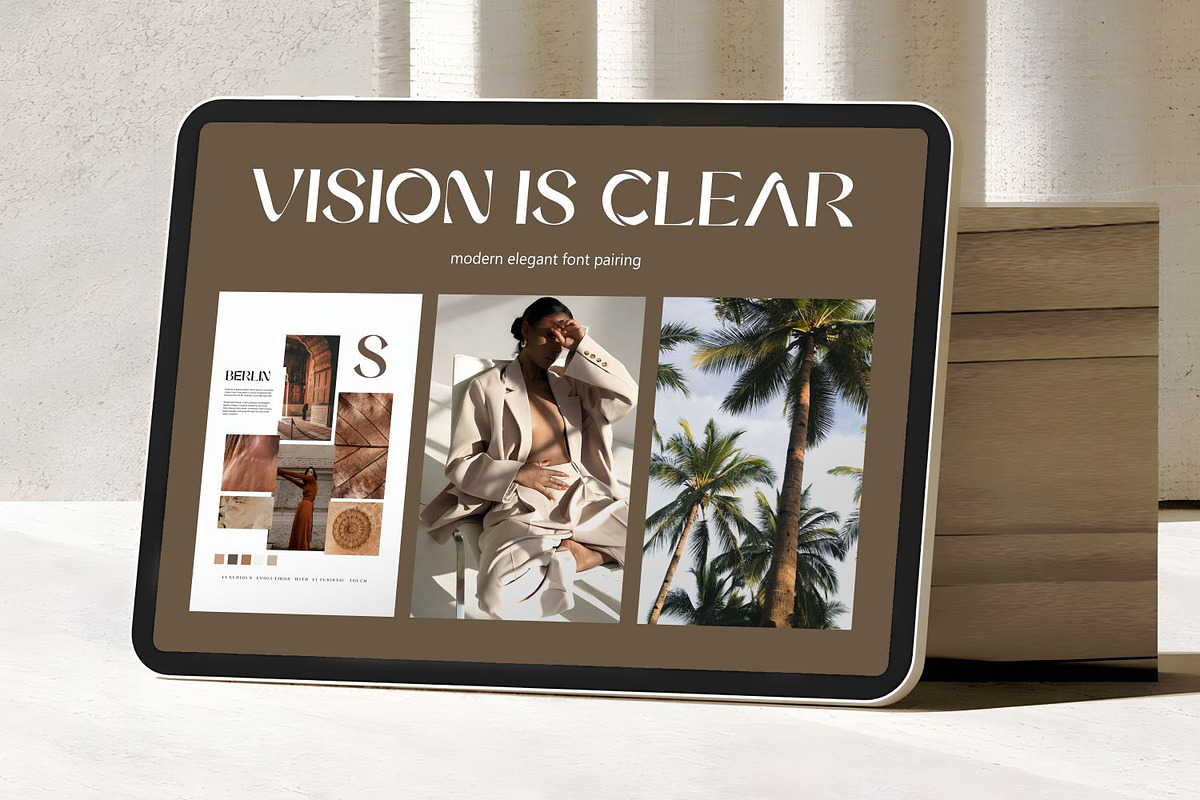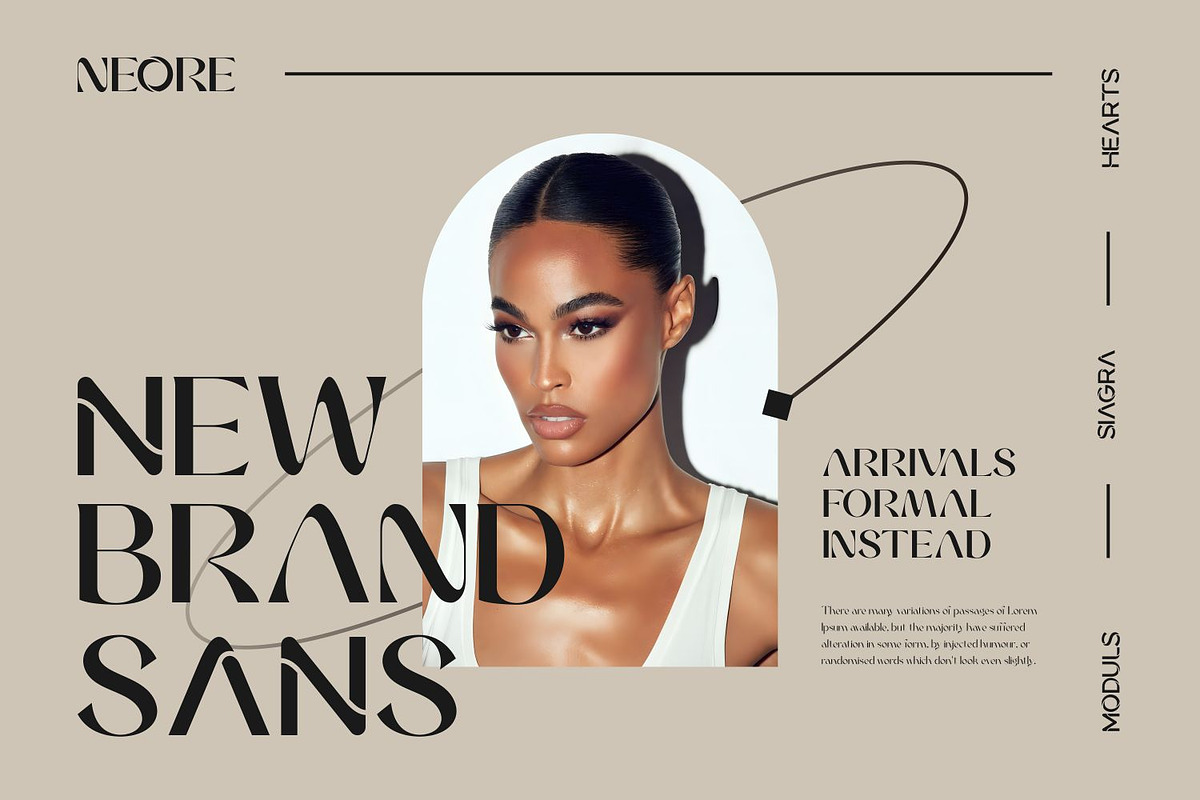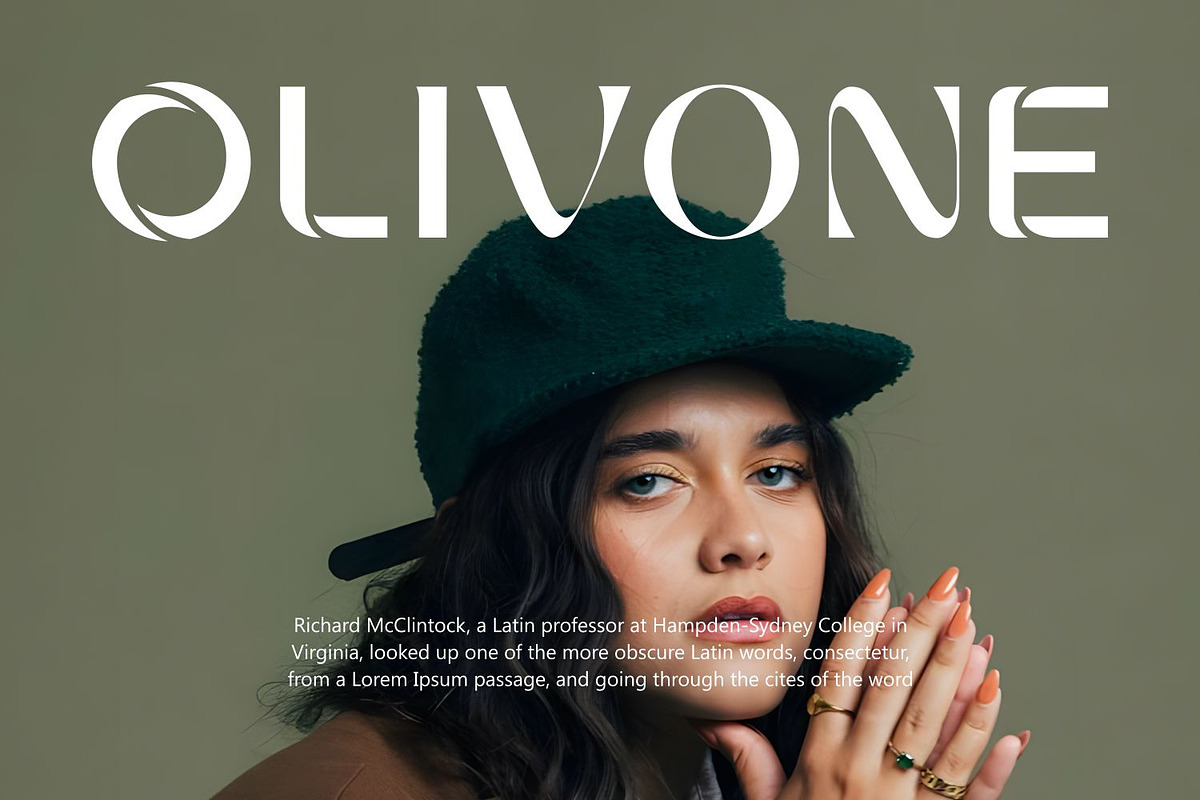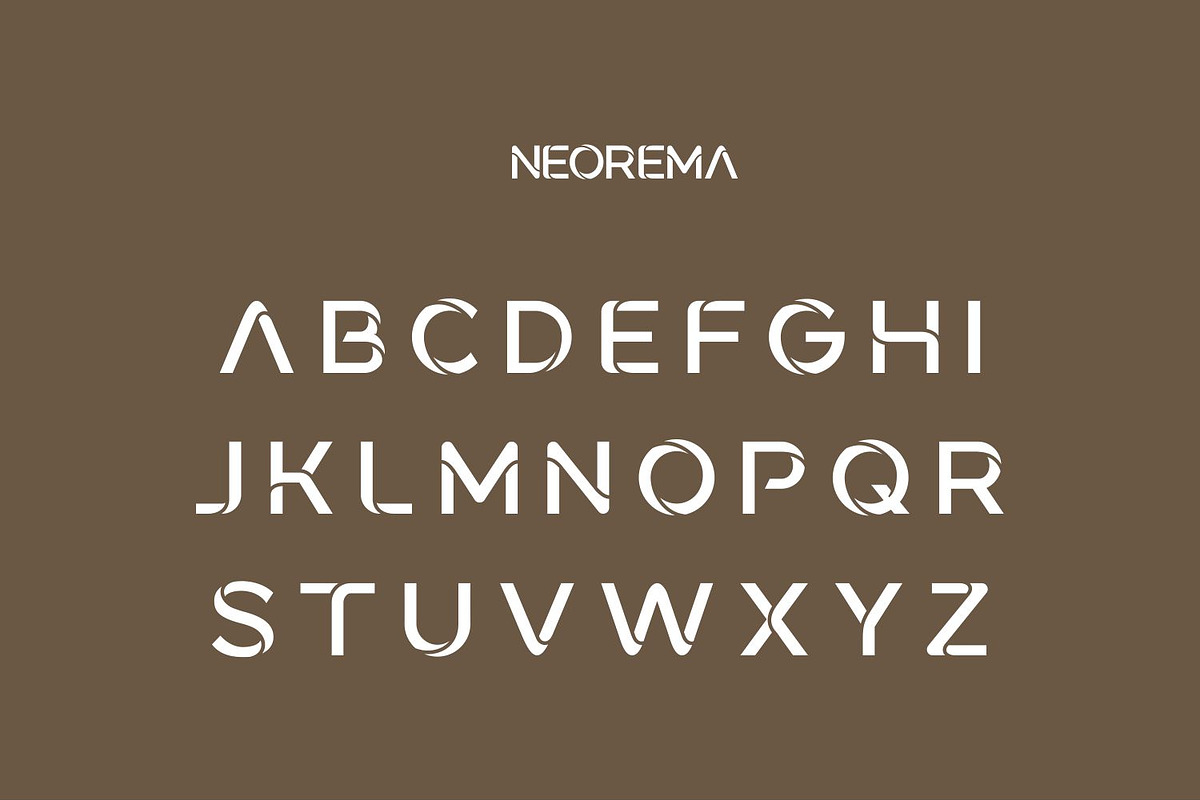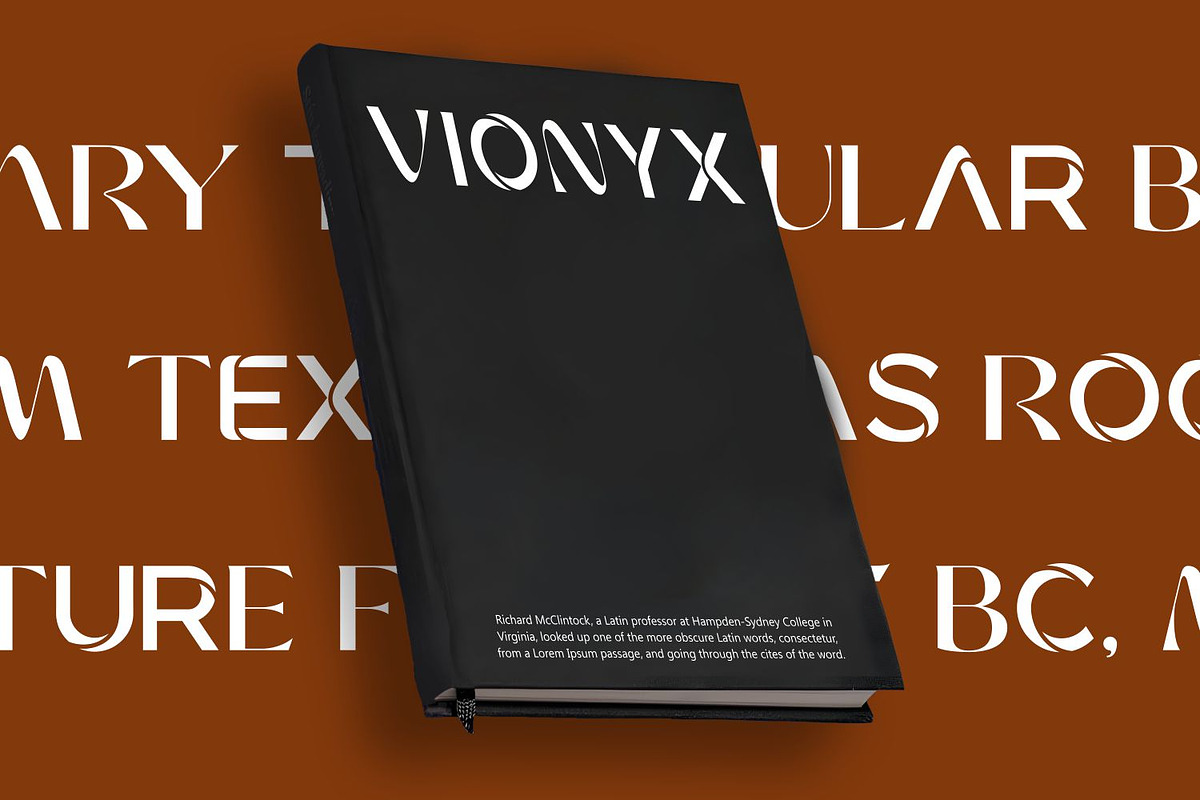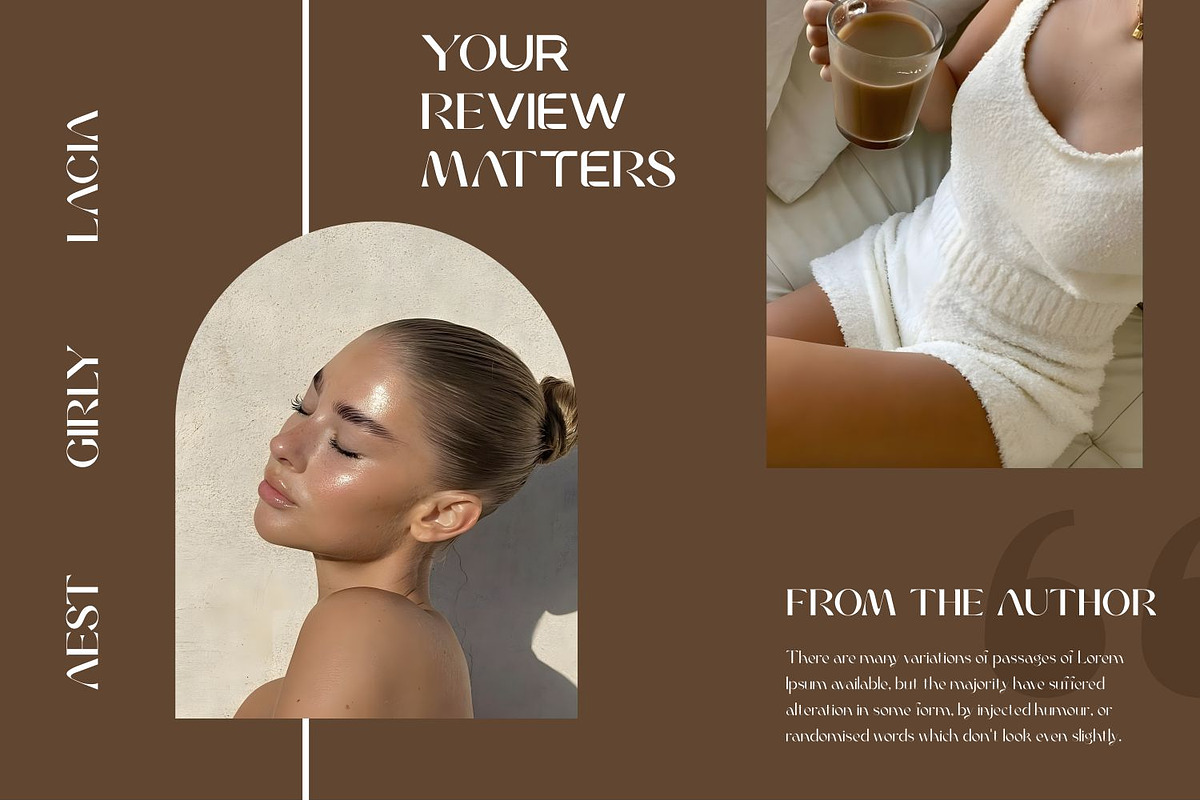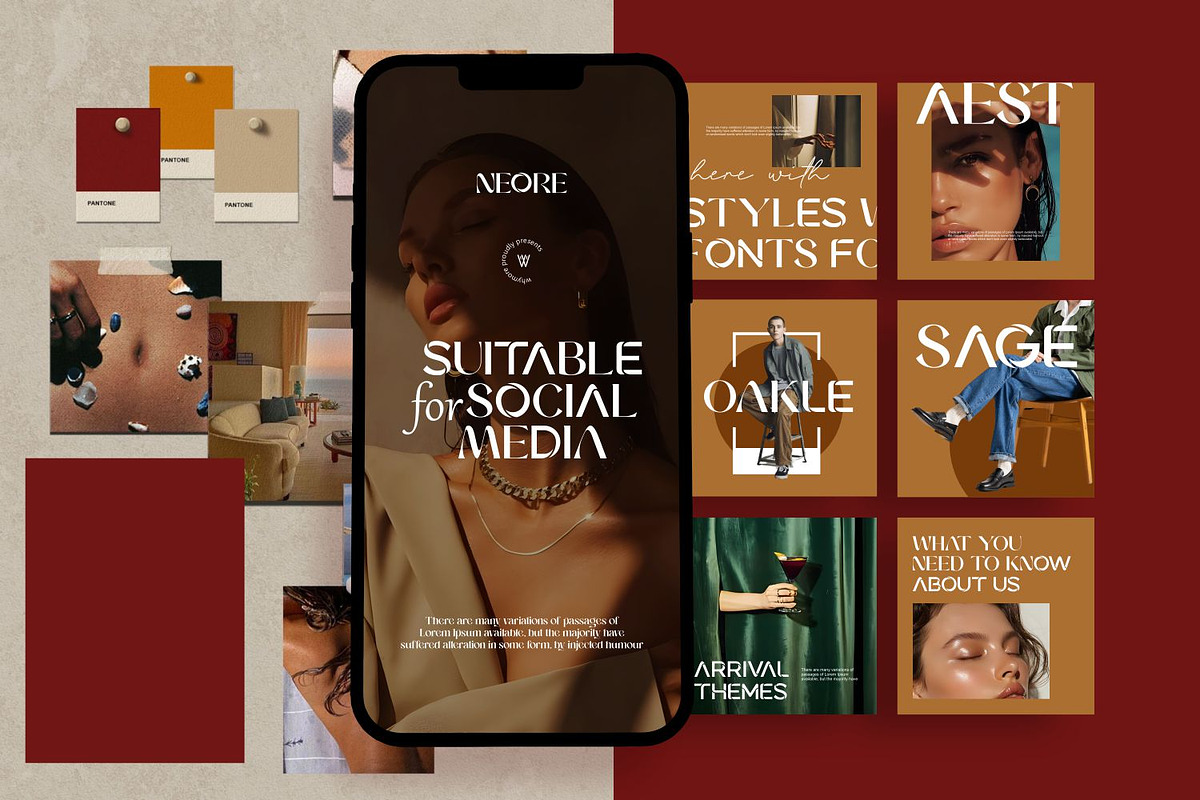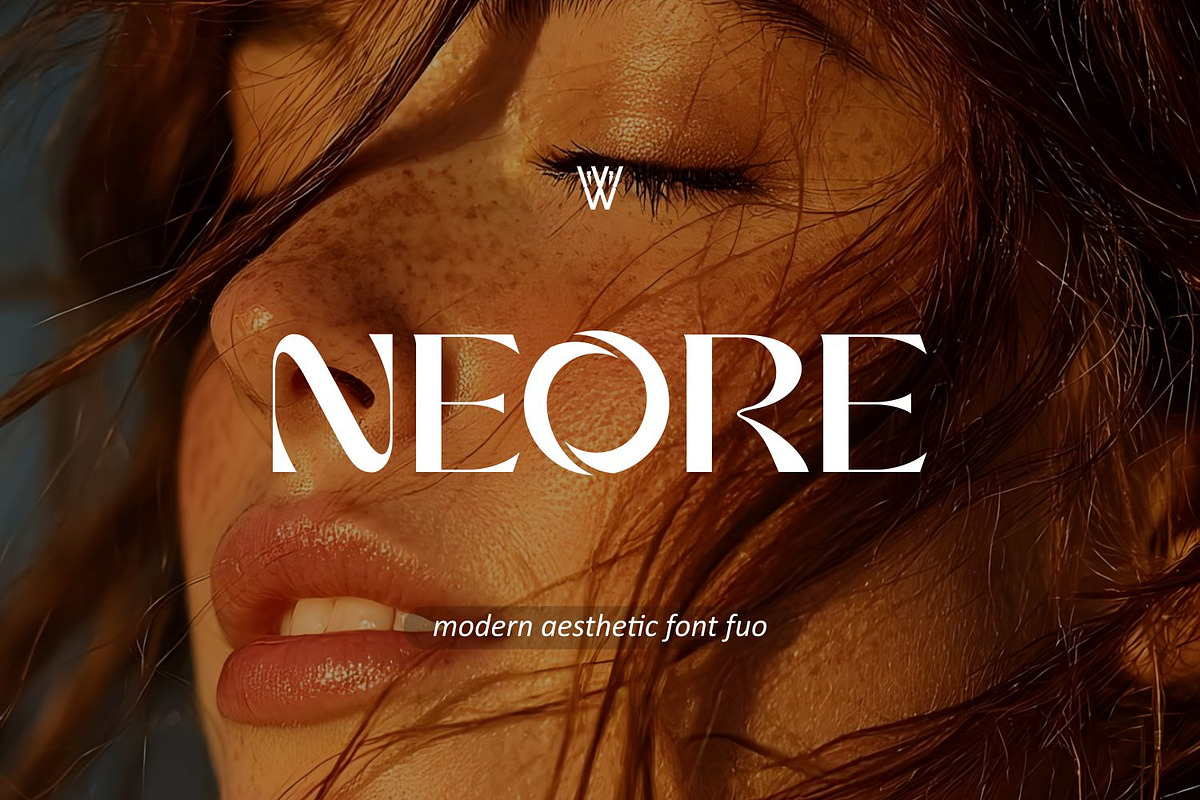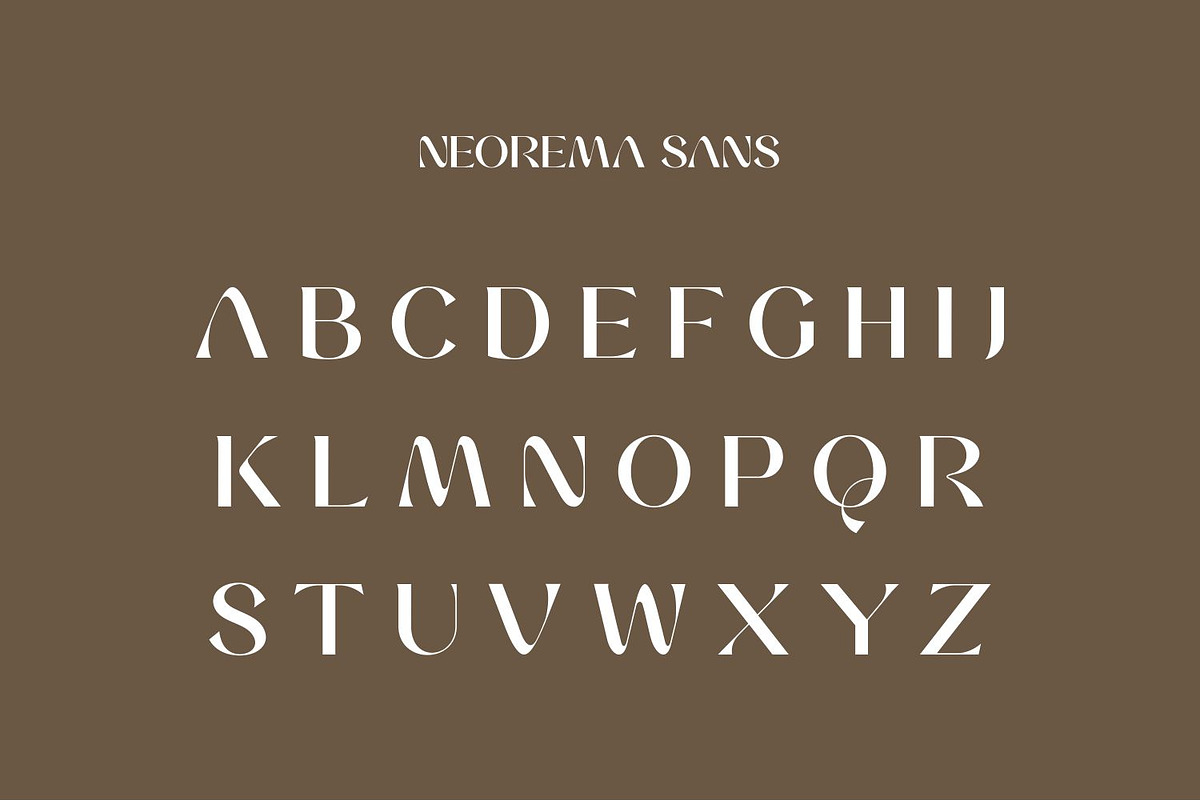
NEORE – Futuristic Luxury Font
NEORE is a futuristic luxury display font designed for elegant branding and modern visual identities. Its bold geometric cuts and sleek proportions create a sophisticated aesthetic that instantly stands out in any design project.
Why Should People Download NEORE?
✅ Because NEORE is not just a font, it is the key to creating world-class visuals.
✅ In a design market flooded with generic fonts, NEORE stands out as a rare font that exudes futurism and luxury.
✅ With this one font, your branding will look modern, visionary, and 180° different from your competitors.
What Is This Font Used For?
✅ Exclusive Logos and Branding – Conveys a sense of luxury and professionalism for your brand.
✅ Packaging & Stationery Mockups – Makes every product look premium and luxurious.
✅ Posters, Banners, and Social Media Ads – Captures attention within the first 3 seconds.
✅ Trendsetting Typography 2025 – Introduces a futuristic visual style rarely seen elsewhere.
Value for Users:
✅ Brand Differentiation – Provides a unique visual identity that stands out in a competitive market.
✅ Enhanced Perceived Value – Products appear more expensive and professional simply through typography.
✅ Long-Term Creative Investment – A rare font that can become your signature style for projects.